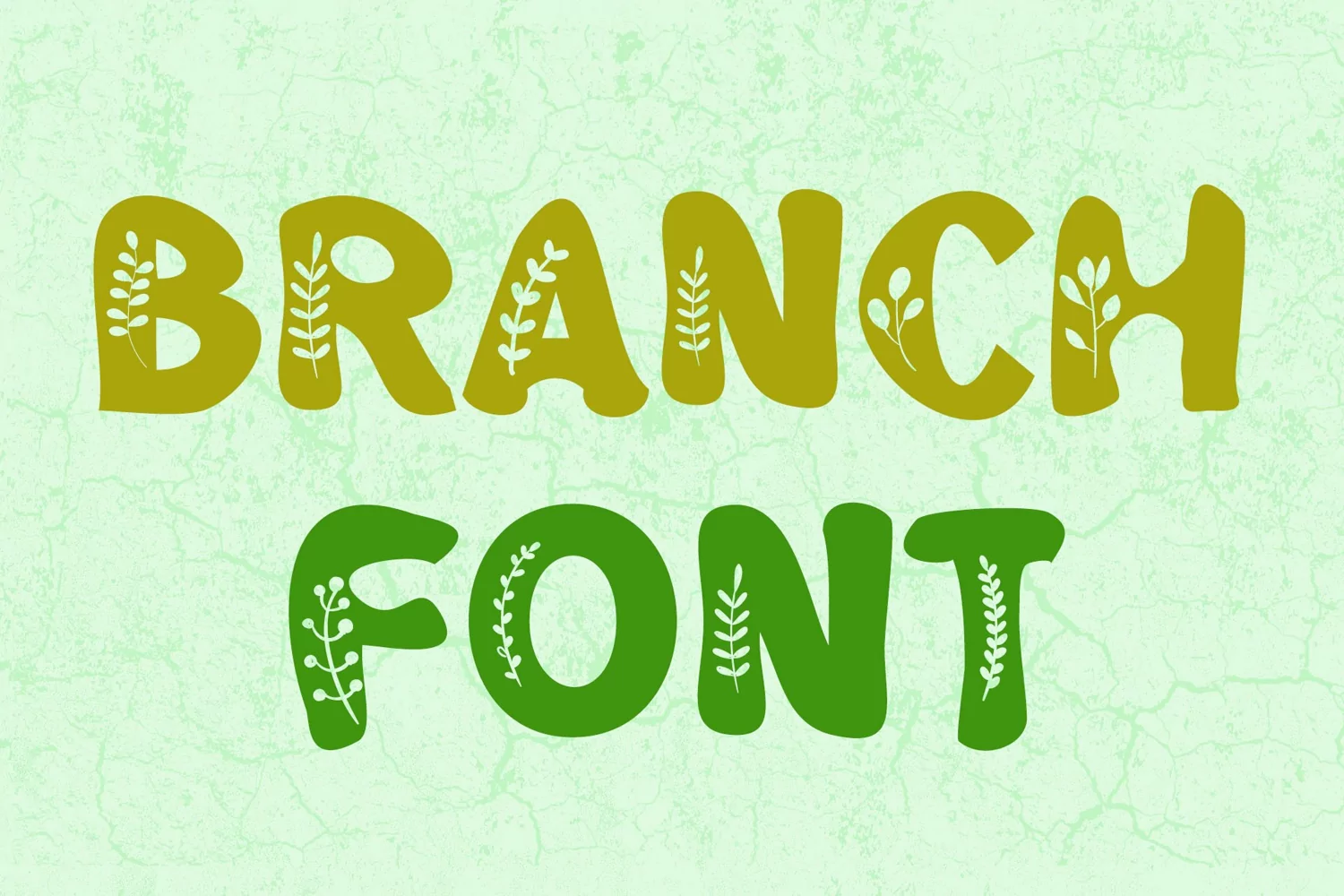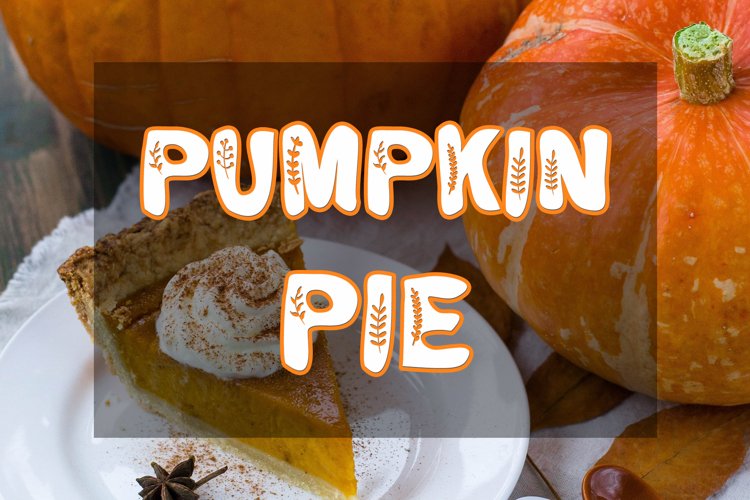
Branch is natural organic plant typeface.
Branch is a friendly decorative font that contains brunch leaf illustrations. It works great for posters, logos, packaging, wedding invitations, website titles, T-Shirts and more.
It contains brunch leaf illustrations that are embed into the font.
Also great as Fall Font, Thanksgiving Font, Halloween Font.